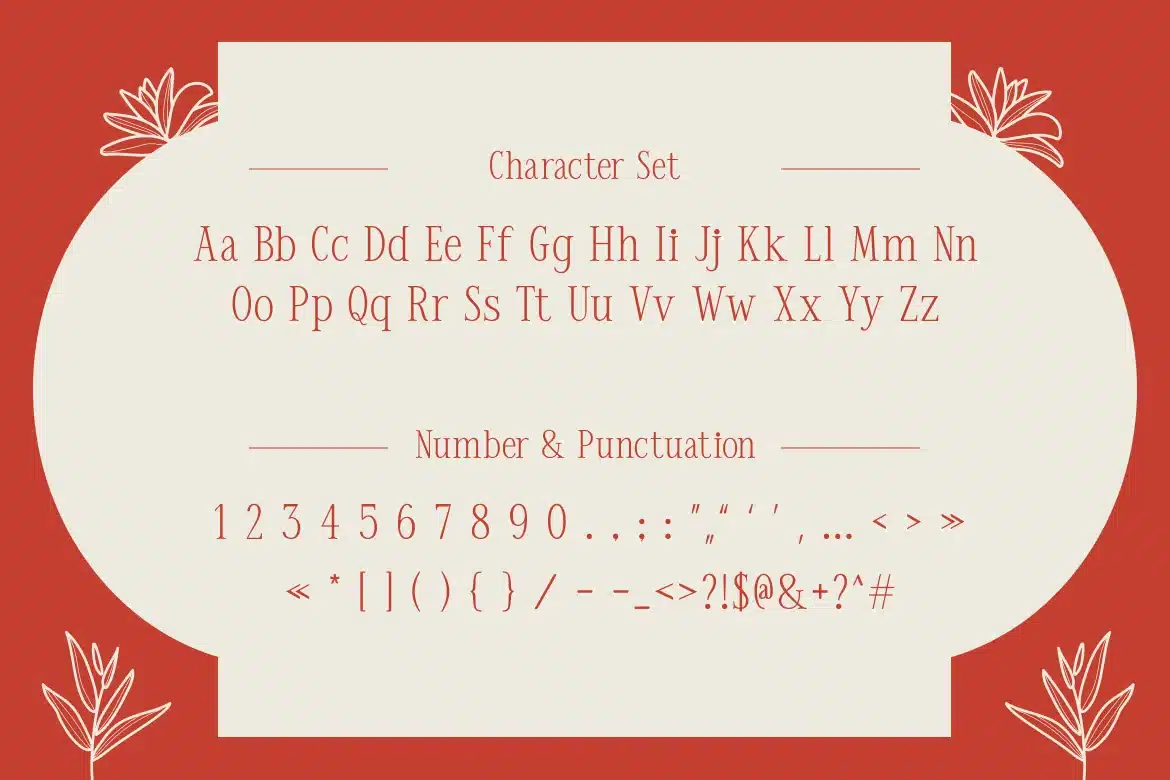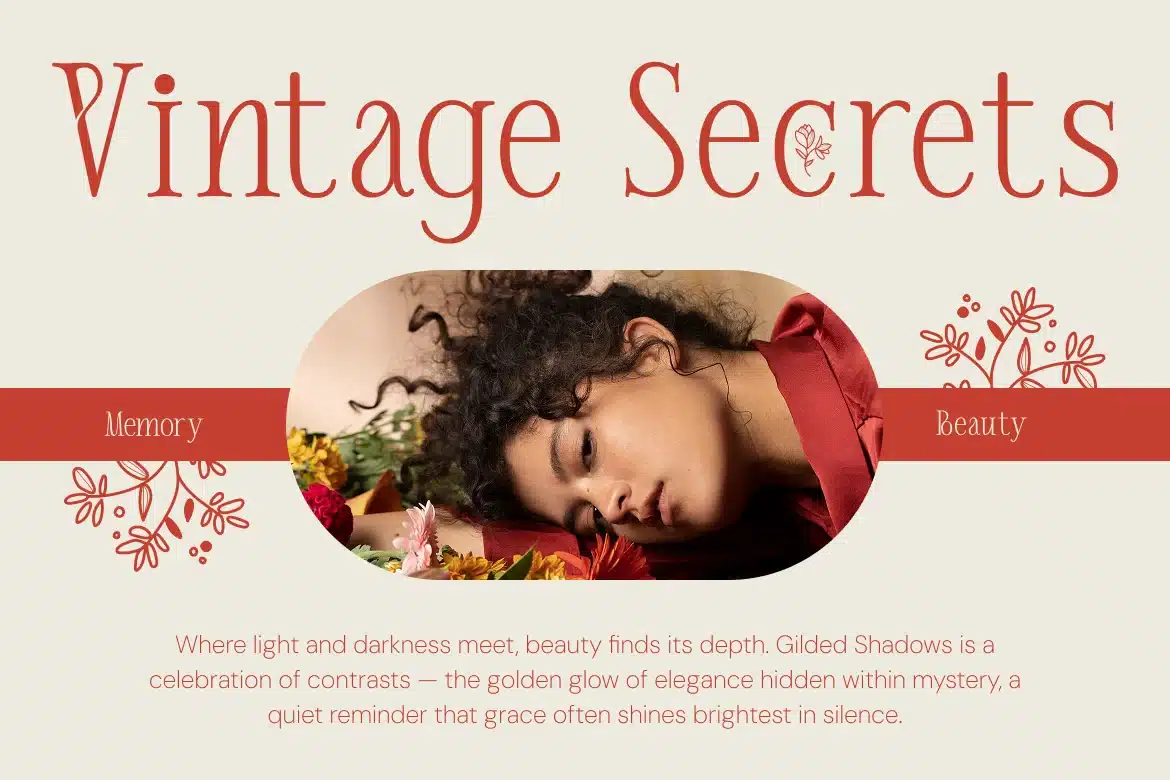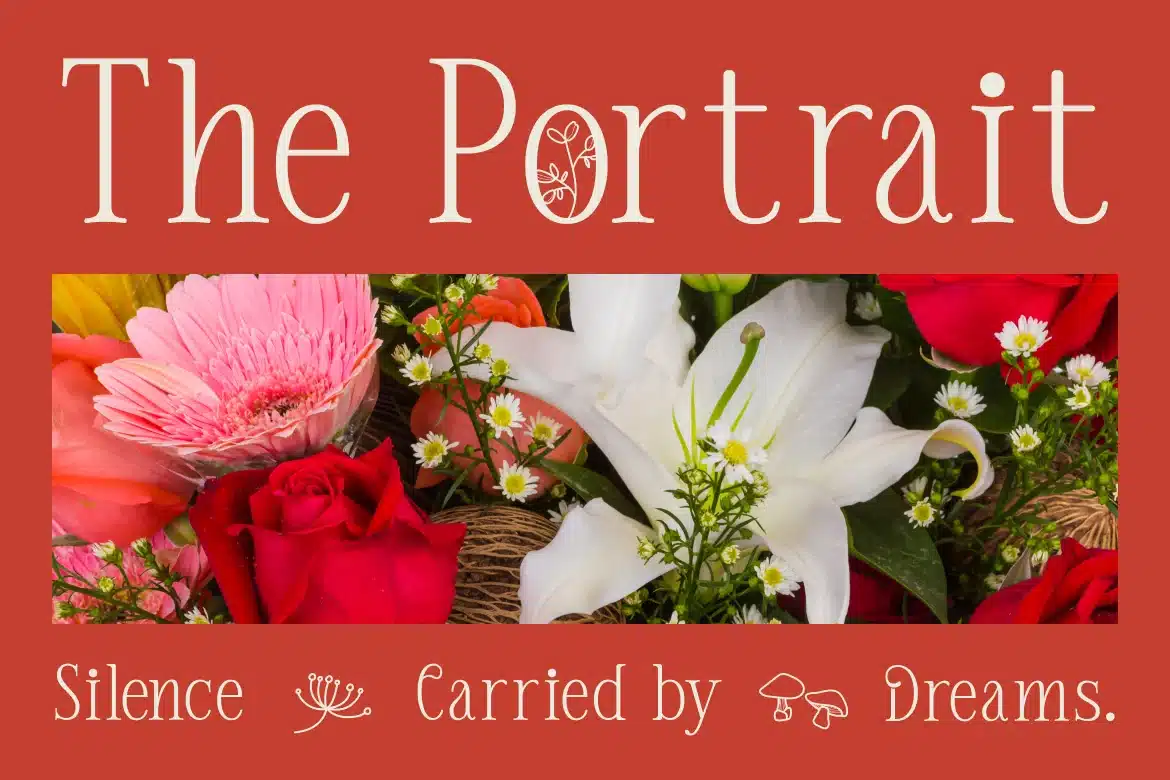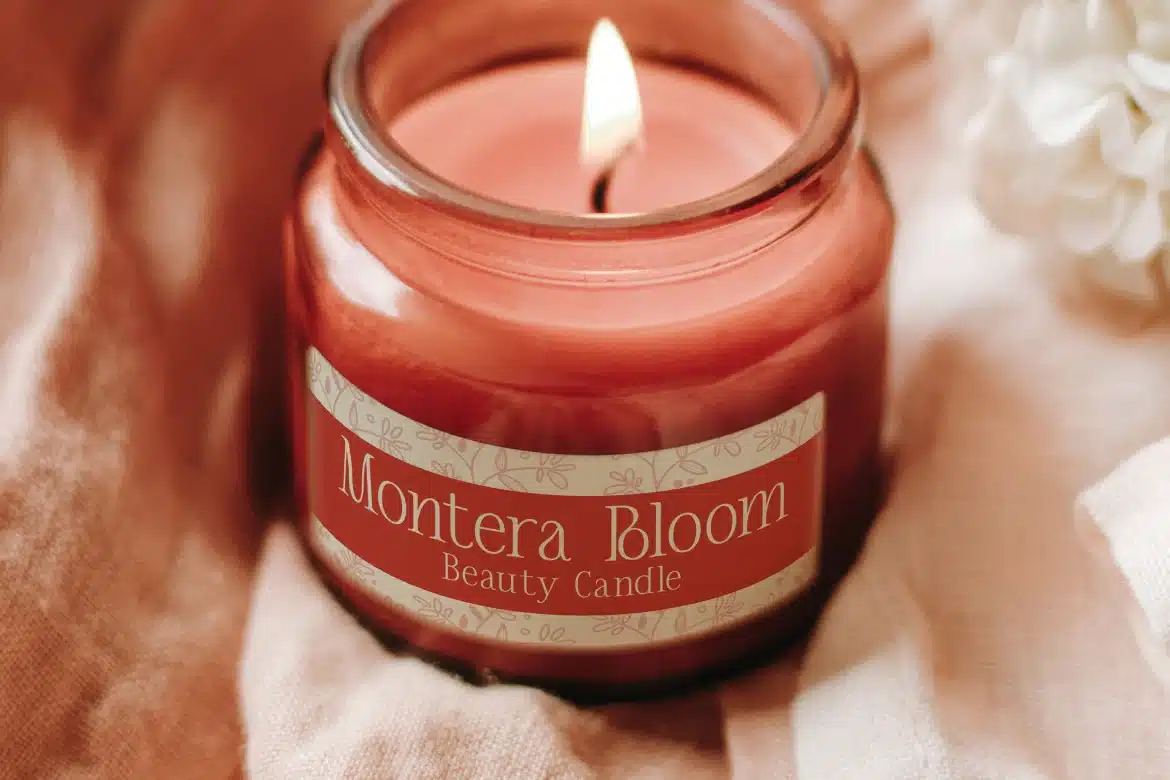
Montera Bloom Classic Serif Font
Montera Bloom Classic Serif Font is a timeless serif typeface designed with elegance and refinement. Its tall letterforms, delicate curves, and fine serifs bring a sense of classic sophistication to your designs. The font includes uppercase, lowercase, numerals, and punctuation, making it versatile for both display and editorial projects. Perfect for branding, magazines, invitations, packaging, and more, Montera Bloom elevates any design with its graceful and professional character.
Relevance and Use Cases is perfect for branding, packaging, magazine layouts, editorial projects, wedding invitations, social media graphics, creative portfolios, and luxury design projects that demand a touch of elegance and classic sophistication.